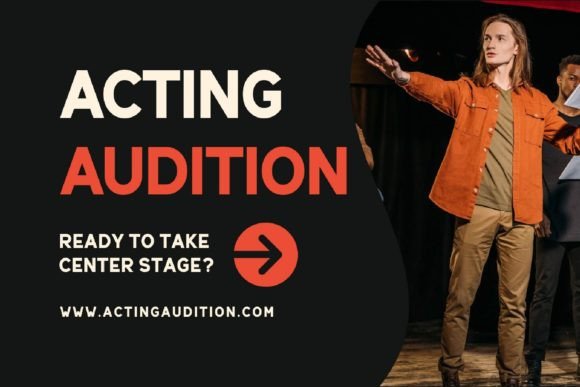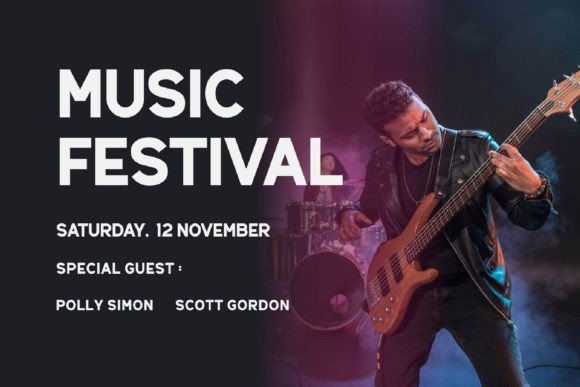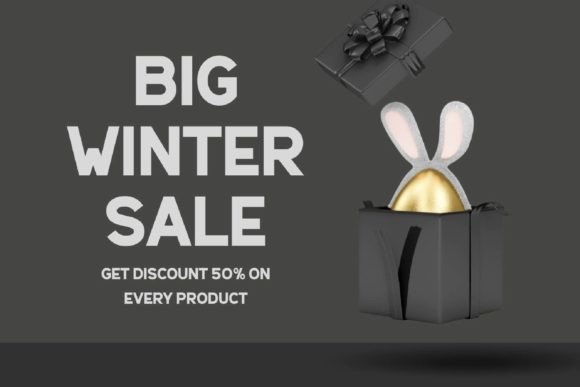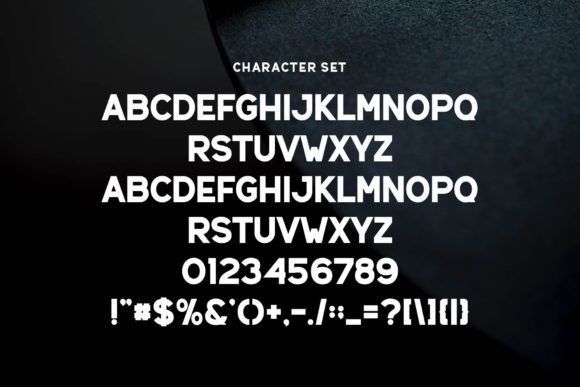
Introducing Badra Font: The Epitome of Modern Elegance
In the realm of typography, few fonts manage to strike a balance between elegance and modernity as effortlessly as Badra Font. This stunning sans serif font has been making waves in the design community, and for good reason. Its minimalist and clean aesthetic makes it the perfect addition to a wide array of design projects, from book covers and magazines to social media posts and invitations.
The Essence of Badra Font
Badra Font embodies the essence of modern design. Its sleek lines, uniform curves, and uncluttered appearance make it a versatile choice for designers looking to infuse their work with a touch of sophistication. The font’s elegance lies in its simplicity, making it an excellent choice for projects where clarity and readability are paramount.
Key Features of Badra Font
- Modern Sans Serif Design: Badra Font boasts a contemporary sans serif design that is both clean and elegant. Its modern appeal ensures that your designs stand out in a crowded digital landscape.
- Minimalist Aesthetic: The font’s minimalist vibe is perfect for designers who prefer a less-is-more approach. This simplicity allows your content to take center stage while providing a subtle yet sophisticated backdrop.
- Versatility: One of the standout features of Badra Font is its versatility. It can be seamlessly integrated into various design projects, including but not limited to book covers, magazines, social media posts, and invitations.
- Clean and Readable: The clean lines and well-crafted letterforms of Badra Font ensure that your text is not only visually appealing but also highly readable, making it ideal for both digital and print media.
Applications of Badra Font
The adaptability of Badra Font is one of its most compelling attributes. Here are some of the many ways you can utilize this elegant font in your designs:
- Book Covers: Create eye-catching book covers that convey the tone and essence of your literary work. Badra Font’s modern appeal can help your book stand out on crowded shelves.
- Magazines: Whether you’re designing a lifestyle magazine or a specialized publication, Badra Font can add a touch of elegance to your editorial content.
- Social Media Posts: Elevate your social media presence with stylish posts that incorporate Badra Font. Its clean and modern look is sure to engage your audience.
- Invitations: From wedding invitations to corporate event invites, Badra Font can help you create stunning and sophisticated designs that leave a lasting impression.
Why Choose Badra Font?
In a world where design trends are constantly evolving, Badra Font offers a timeless appeal that can enhance a wide range of projects. Its combination of elegance, modernity, and versatility makes it an invaluable addition to any designer’s toolkit. By choosing Badra Font, you’re not just selecting a typeface; you’re embracing a design philosophy that prioritizes clarity, simplicity, and aesthetic appeal.
Badra Font is more than just a typeface; it’s a design statement. Its elegant and modern sans serif design, coupled with its minimalist and clean vibe, makes it the perfect choice for designers and crafters looking to elevate their projects. Whether you’re working on a book cover, magazine, social media post, or invitation, Badra Font offers the versatility and sophistication you need to create visually stunning designs. Embrace the elegance of Badra Font and discover a world of limitless design possibilities.